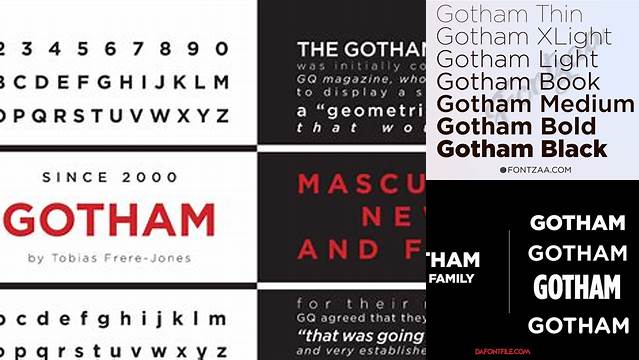
Gotham Font: Your Guide To The Free Iconic Typeface
Free Font Family Gotham has become a cornerstone of modern design, gracing everything from global brand identities to everyday websites. Its clean lines, geometric structure, and versatility have made it a favorite among designers and creatives worldwide. In this comprehensive guide, we'll delve into everything you need to know about Gotham: its history, characteristics, usage, and, of course, how to get your hands on the free font family Gotham for your projects. So, guys, let's dive in!
1. The Genesis of Gotham: A Brief History
Okay, so let's rewind a bit and talk about the origins of our beloved free font family Gotham. Designed by Tobias Frere-Jones and released in 2000, Gotham was originally commissioned by GQ magazine. Frere-Jones drew inspiration from the geometric sans-serif fonts that were prevalent in mid-20th-century architecture, specifically the signage found in New York City. The goal was to create a typeface that felt both modern and distinctly American. And boy, did he succeed! The font's clean, simple shapes and strong vertical strokes quickly set it apart. Its appearance in GQ was a resounding success, attracting attention from designers and media outlets alike. This initial use was crucial, as it helped establish Gotham's reputation and laid the foundation for its widespread adoption. The font’s instant appeal was due to its contemporary aesthetic. It was a perfect match for the magazine's focus on style and sophistication. The font's ability to convey a sense of strength and stability while remaining approachable and elegant made it an immediate hit. The popularity of the free font family Gotham quickly spread beyond the pages of GQ, becoming a go-to choice for branding and design. This initial success was a testament to Frere-Jones' design genius and the inherent appeal of the typeface. The design of Gotham was more than just an aesthetic choice; it was a deliberate effort to capture a specific mood and feeling. The fonts that inspired it were based on the signage of New York City. The typeface captured a sense of urban modernity and American optimism. The font's widespread use is a testament to its timeless appeal. It continues to be used today in various applications, from branding to editorial design.
2. Key Characteristics That Define the Gotham Font Family
Let’s get down to the nitty-gritty, shall we? What makes the free font family Gotham so special? Well, a few key characteristics set it apart. First and foremost, it's a geometric sans-serif. This means its letterforms are based on simple geometric shapes, like circles and rectangles, without the decorative serifs found in many traditional fonts. This gives Gotham its clean, modern look. The letterforms themselves have a strong vertical emphasis, which contributes to the font's sense of strength and authority. The height of the x-height, the height of the lowercase letters, is relatively large, making it highly legible even at smaller sizes. The font's generous spacing between letters and words is another important feature, enhancing its readability. Gotham is available in a wide range of weights, from thin and light to bold and black. This allows designers to create a variety of effects, from delicate headlines to powerful emphasis. The font’s versatility is another defining feature. Its flexibility means that it can work in a variety of design applications, and is suited for both headlines and body text. It's also available in a range of widths, giving designers even more control over the look and feel. The font is known for its consistency and balance. This consistency makes it a great choice for branding, as it ensures a cohesive and unified appearance across different applications. The characteristics are not just aesthetic features; they have a functional purpose. It's easily legible, and its flexibility means it can adapt to various contexts. The key characteristics have solidified its place as a modern classic. The design is both visually appealing and highly functional, and it continues to be a favorite among designers.
3. Gotham’s Versatility: Applications in Design and Branding
Alright, let's talk about where you'll actually see the free font family Gotham in action. This font is incredibly versatile and has been used across a vast spectrum of applications. In branding, Gotham has become a staple for companies looking to project a sense of trustworthiness and modernity. The clean lines and friendly appearance make it ideal for logos, taglines, and marketing materials. Many well-known brands have adopted Gotham. In web design, its clarity and legibility make it a fantastic choice for both headlines and body text. It's a great choice for a clean, modern website design. Its ability to work seamlessly across different devices and screen sizes is another advantage. In print design, Gotham is a popular choice for everything from magazines to posters. The font's wide range of weights and styles allows designers to create visually striking layouts. It also performs well in long-form text, providing a comfortable reading experience. The font's versatility means it can adapt to various projects. The font has also been used in various areas, like government campaigns. The versatility has made it a font of choice for various projects. The design is adaptable to a variety of needs. The font can be used in different contexts, and that versatility makes it valuable in modern design. The font's timeless design and ability to adapt ensure its continued relevance in the field of design. Its use across various media is a testament to its adaptability.
4. The Distinctive Weights and Styles of Gotham
Okay, so you're probably wondering, what's so great about the different styles of the free font family Gotham? Well, it's the variety that truly unlocks its potential. Gotham comes in a range of weights, from the delicate Gotham Thin to the bold Gotham Black. Each weight offers a different visual impact, allowing you to fine-tune the message you're trying to convey. Lighter weights are perfect for creating a sense of elegance and sophistication. These are often used for headlines or accents. The heavier weights convey strength, confidence, and power. They are a great choice for headlines or calls to action that demand attention. Besides the weights, Gotham also offers different widths, such as Gotham Narrow and Gotham Condensed. These variations are extremely useful when space is limited, allowing you to fit more text into a smaller area without compromising readability. You'll often find them used in headings and subheadings where a more compact design is needed. Each weight and style is carefully designed to maintain consistency. The consistent visual appearance across different styles and weights has ensured its continued popularity. The combination of different styles and weights allows designers to create a cohesive design. These different styles contribute to the font's overall versatility. Its adaptability to a variety of design scenarios has ensured its place as a beloved font.
####### 6. Gotham in Action: Famous Logos and Branding Examples
Let's take a look at some real-world examples of the free font family Gotham being used to great effect. One of the most recognizable uses of Gotham is in the branding of the Obama presidential campaign. The campaign used Gotham for its logo, posters, and website. This choice helped to convey a sense of trustworthiness and modernity, which resonated with voters. Another prominent example is the use of Gotham by the fashion brand, Kate Spade. They use the font extensively in their marketing materials, from advertising to packaging. The clean and elegant look of Gotham complements Kate Spade's aesthetic perfectly. The use of Gotham by brands across a variety of industries has further solidified its versatility. Its use in branding has made it very well-known. Its ability to convey a brand's message effectively has led to its continued popularity. The use of Gotham has a positive impact on its overall appearance.
######## 7. Gotham vs. Similar Typefaces: Alternatives to Consider
So, you like Gotham, but maybe you're looking for something similar? There are definitely other great sans-serif fonts out there that share some of Gotham's characteristics. One popular alternative is Montserrat, which is available for free download on Google Fonts. Montserrat offers a similar geometric feel with a slightly more condensed appearance. It’s a great choice if you're looking for a modern font that's also highly legible. Another option is Open Sans, another free font from Google. Open Sans is very versatile and designed for readability, making it a good choice for both body text and headlines. If you’re looking for something with a touch more personality, you might consider Proxima Nova. It's a premium font that has a wide range of weights and styles, but it also comes with a cost. The alternatives have similar visual qualities. The decision depends on your specific design needs. Consideration of these alternatives ensures you have a variety of options to choose from. Each font offers its unique qualities. This allows you to make a well-informed decision. The alternatives offer a variety of styles to meet your needs.
######### 8. Tips for Using the Gotham Font Family Effectively
Alright, you've got the free font family Gotham, now what? Here are some tips to help you use it like a pro. First, remember to choose the appropriate weight for your intended purpose. Lighter weights are great for headlines or accents, while bolder weights are perfect for grabbing attention. Consider the context of your design. Gotham works well in both digital and print media, but the specific weight and size you choose will depend on the application. Don't be afraid to experiment. Play around with different weights and sizes to find what works best for your project. Pay attention to spacing. Gotham’s clean lines can look even better with well-thought-out spacing between letters and words. Use Gotham in combination with other fonts. Sometimes, mixing fonts can add visual interest. Gotham pairs well with fonts of different styles. Proofread your work. Ensure that your text is error-free to maintain a professional look. The tips ensure the effective use of Gotham. The tips help enhance the effectiveness of Gotham in your design projects. The proper use of Gotham enhances the overall appearance. The attention to detail can lead to the creation of visually appealing designs.
########## 9. Legibility and Readability: Maximizing Gotham's Impact
One of the greatest strengths of the free font family Gotham is its legibility. However, there are a few things you can do to maximize its impact. First, make sure you choose the correct size. Gotham is legible at various sizes. Don't be afraid to experiment to find the best size for your text. Consider the background. The contrast between the text and the background is key. Dark text on a light background is generally easier to read than light text on a dark background. Pay attention to kerning, the spacing between individual letters. Sometimes, you might need to adjust the kerning to improve readability. Use appropriate line spacing. This can make a big difference, particularly in body text. Avoid using Gotham in very small sizes for large blocks of text, as this can make it difficult to read. The key to optimizing readability is to focus on the user's experience. Readability is crucial for good design. Focus on making your text easy to read and understand. The font is highly legible, making it ideal for various purposes. This ensures the clarity of the text.
########### 10. Licensing and Legal Considerations for Free Gotham Fonts
When using the free font family Gotham, it's important to be aware of the licensing and legal considerations. Most free fonts come with a license that specifies the permitted uses. Make sure you understand the license before you start using the font. Some licenses allow commercial use, while others are limited to personal projects. If you're using Gotham for commercial purposes, such as branding or marketing, make sure your license allows it. Check the license terms for any restrictions. The terms might involve limits on the number of uses or the types of products you can use it in. Be wary of downloading fonts from untrusted sources. Always download fonts from reputable websites. Read the license carefully to ensure you are in compliance. The licenses can vary, so it's important to verify them. The legal considerations will help you avoid legal issues. Compliance with the licenses ensures that you respect the designer's work. Adherence to the terms will ensure your design efforts are both legal and ethical. You will be on the right track when it comes to licensing.
############ 11. Gotham for Web Design: Optimizing for Digital Display
Okay, so you want to use the free font family Gotham on your website, huh? Here's how to optimize it for digital display. Choose the appropriate font weights. Ensure the weight is readable on screens. Consider the font size. Test the readability on different screen sizes and devices. Ensure the font is optimized for web use. Ensure your site loads quickly. Optimize the font files. Use font formats that are optimized for web use. Ensure good contrast. Use Gotham in conjunction with other fonts. Make the website accessible to all users. The font's modern aesthetic makes it perfect for web design. Testing the font's readability is key. This enables your website to have a visual impact. Gotham's versatility will help improve the user experience. It is important to optimize the font files to reduce the load time. This can make the website more accessible to all users. It will help with the overall appearance of your website.
############# 12. Pairing Gotham with Other Fonts: Creating Harmonious Designs
One of the great things about the free font family Gotham is its ability to pair well with other fonts. Here's how to create harmonious designs. Consider the contrast between Gotham and the other font. You can use different fonts to create visual interest. Experiment with different pairings. The choice of the font should depend on your project. Use Gotham for headlines and a more readable font for body text. The use of different font pairings can add visual interest. Pairing different fonts can improve the overall appearance of your design. Careful font selection can improve the overall effectiveness of your design. Pair Gotham with a contrasting font to make your design stand out. These guidelines will help you in your designs.
############## 13. Gotham and Typography Trends: Staying Current
Let's talk about how the free font family Gotham fits into the current typography trends. While it's a timeless classic, it still aligns with contemporary design principles. It continues to be relevant in various trends. Its versatility and adaptability are key. The trend is towards a clean, minimalist aesthetic. Gotham's clean lines and simplicity make it a perfect fit. Modern designs embrace a user-friendly approach. Its timeless appeal continues to make it a favorite. It provides the designer with a solid foundation. Designers can adapt the font to reflect current design trends. The ability to adapt ensures its continued popularity. This will help to bring success to the project. Gotham's adaptability is its core strength.
############### 14. The Impact of Gotham on Branding and Identity
The free font family Gotham has had a significant impact on branding and identity. Its clean, modern look conveys a sense of trust and professionalism. It has been adopted by major brands to communicate their values. It helps to establish a consistent brand identity. The font's versatility is its strength. The visual impact of the font on the brand is also important. A strong brand identity ensures the success of a company. The font plays a crucial role in conveying the brand's message. This will help you to succeed in your project. Gotham's impact on branding and identity is clear.
################ 15. Resources for Learning More About Gotham and Typography
If you're looking to expand your knowledge of the free font family Gotham and typography, here are some great resources. Explore online typography courses. Research the history of Gotham. Read design blogs and articles. Experiment with different fonts. Stay informed about current design trends. This will enhance your design skills. These resources will help you to stay updated. They are a valuable source of information. Gotham is an excellent font to use. You will be able to improve your skills by learning more. You'll gain more design experience by doing so.
################# 16. The Role of Gotham in Minimalist Design
The free font family Gotham fits perfectly into the realm of minimalist design. Its clean, geometric style aligns well with the core principles of minimalism. The simplicity of the font is also important. Gotham's ability to convey a message is vital. Its clean lines convey a sense of clarity and elegance. This is a great choice for minimalist projects. It is a staple in minimalism. Its adaptability is important. You will find it helpful to get the project done. Minimalism is a design trend.
################## 17. Gotham for Headlines: Making a Bold Statement
When it comes to headlines, the free font family Gotham truly shines. Its strong presence and readability make it perfect for grabbing attention. It's available in a variety of weights. The bold weights make a strong visual impact. It offers a clean and modern aesthetic. Headlines are important for any project. Gotham is the right choice for the project. The headline must be legible. Its ability to convey a message is important. It is an ideal choice for creating striking headlines. Gotham is an excellent choice for a project.
################### 18. Accessibility Considerations with the Gotham Font Family
When using the free font family Gotham, consider accessibility. Ensure that your text is readable for people with disabilities. Choose appropriate font sizes and weights. Pay attention to the contrast between the text and the background. Avoid using Gotham in very small sizes for large blocks of text. Be mindful of color contrast. These considerations are vital for your design. Accessibility is key to a good user experience. You'll make your content accessible to everyone by doing this. It's vital to ensure your design is accessible to all users. Consider your target audience when making your design.
#################### 19. Gotham and the Future of Type Design
The free font family Gotham has had a significant impact on type design. The font is versatile. It sets the standard for modern typefaces. It is a great example of good design. It will continue to influence future designers. It has set the standard. The font will continue to be a part of the industry. Its versatility ensures that it will remain a relevant font. Its popularity will continue to grow.
##################### 20. Troubleshooting Common Gotham Font Issues
Sometimes, you might run into a few issues when working with the free font family Gotham. Here are some common problems and how to solve them. Font not displaying correctly. Verify that the font is installed properly. Ensure the font is compatible with your software. Issues with kerning or spacing. Make adjustments to the kerning. Check the font's license. Troubleshooting ensures effective use. Make sure you understand the license. Check the font's format. These are important considerations. Follow these solutions to troubleshoot. You can improve your designs by doing this.
###################### 21. Customizing Gotham: Modifying and Adapting the Font
While you can't directly modify the free font family Gotham in the same way you can with a vector graphic, you can adapt it to suit your needs. You can adjust the size and spacing of the text. This enables you to create visual interest. Choose a color palette that complements the font. Experiment with different weights and styles. You can make adjustments to the typeface. These alterations can help to tailor the font to your specific needs. This is a key to personalization. This gives you a wider range of options. It can help you make a distinct design.
####################### 22. Gotham in Editorial Design: Creating Readable and Engaging Content
The free font family Gotham is a fantastic choice for editorial design. Its clean lines and high legibility make it perfect for magazines, brochures, and other publications. The font works well in various contexts. It's essential to consider your audience. The choice of font is a crucial decision. It is important to use Gotham appropriately. Gotham can help make the content more engaging. It helps create a visually pleasing layout. The combination of Gotham and well-designed layouts leads to successful projects.
######################## 23. The Psychological Impact of the Gotham Font Family
The free font family Gotham has a subtle but significant psychological impact. The font's clean lines and geometric shapes can convey a sense of order and trustworthiness. Its modern look can make your project more professional. The impression that the font makes can impact the reader. It is a great choice for various brands. Gotham is known for its professionalism and clarity. It ensures your project will be well-received. The psychological aspect is key to the design. The font can influence the audience's perception.
######################### 24. Gotham and Color: Achieving Visual Harmony
When using the free font family Gotham, consider the colors you pair with it. Gotham's clean lines complement various colors, creating visual harmony. The colors used in your design are a key factor. Choose a color palette that matches your brand. Experiment with different color combinations. Think about the message you want to convey. Using color well is very important. It can enhance the project's aesthetics. The colors can also affect the audience's perception. Careful color choices make the design stand out. Using the right color can make a difference in your project.
########################## 25. The Evolution of Gotham: From Digital to Print and Back
The free font family Gotham has seen continuous evolution since its release. It initially emerged in digital form. It has since been adapted for print and various mediums. The font has adapted to different technologies. Its versatility is important. Gotham continues to be popular across multiple platforms. Gotham's evolution has made it a versatile font. The font has gone through different stages. This is a sign of its popularity and value. It continues to be a vital part of the industry.
########################### 26. Gotham and the Power of Visual Communication
The free font family Gotham is a powerful tool for visual communication. The font's clean lines and legibility make it an ideal choice for conveying information effectively. It is used in various contexts. The visuals can create a strong message. The impact of the font can be substantial. The choices you make are important. Gotham ensures your project can reach a wider audience. It is a powerful tool for your project. Visual communication has become important.
############################ 27. Gotham and User Experience (UX) Design
In UX design, the free font family Gotham plays a crucial role in creating a positive user experience. The font's legibility and clean design contribute to usability. It enhances the overall user experience. The font makes the project more attractive. Make sure the font is easy to read. The font enhances usability. The right font improves the overall experience. This creates an easy and attractive experience. This is a vital part of UX design.
############################# 28. Case Studies: Analyzing the Successful Use of Gotham
Analyzing case studies can provide valuable insights into the effective use of the free font family Gotham. Reviewing these case studies helps you understand the impact. These case studies show how the font is used. They will help you understand the benefits. The case studies have many insights. This can inspire your projects. This enables you to learn from successful examples. You'll gain a better understanding of the font's strengths.
############################## 29. Trends and the Future of Gotham: Where is it Headed?
As design trends evolve, the free font family Gotham is likely to remain relevant. The font's versatility ensures its longevity. Gotham can adapt to many designs. The font's enduring popularity is notable. Its clean lines and geometric aesthetic remain attractive. This ensures the font's continued relevance. The font will continue to be adapted. Its adaptability is its strength. You can see how the font is evolving.
############################### 30. Gotham: A Final Word and Closing Thoughts
So there you have it, everything you need to know about the free font family Gotham. From its iconic history to its versatility, this typeface has earned its place as a cornerstone of modern design. Whether you're a seasoned designer or just starting out, Gotham offers a clean, approachable, and highly effective solution for your projects. Remember to consider its characteristics, explore its various weights and styles, and always ensure you're using the font legally. Happy designing, and enjoy using Gotham to create stunning and impactful visuals, guys! Remember to check the licensing for the version of Gotham you choose. Now go out there and create something amazing! I hope that this comprehensive guide will help you! Thanks for reading this guide about the font!